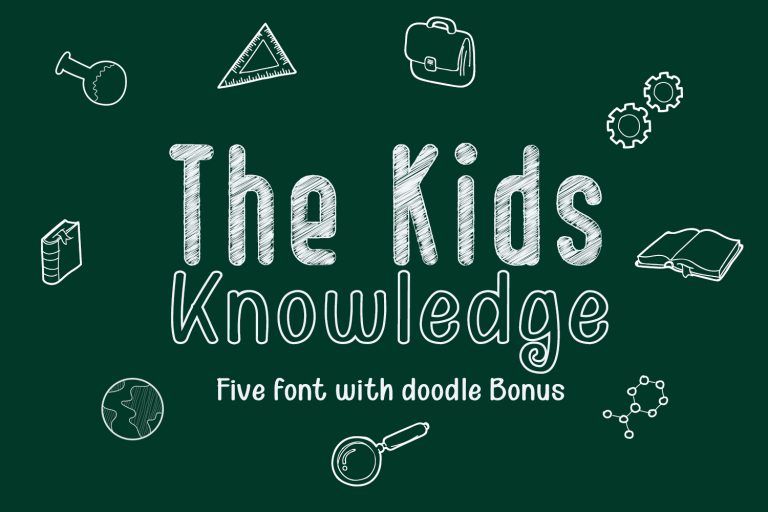
Kid Knowledge
Kid Knowledge sketch - clean
Kid Knowledge sketch - rustic
Kid Knowledge - san outline
Knowledge - san solid
Knowledge-clipart
Kid Knowledge is a striking family. It includes 5 amazing styles which can be combined perfectly, giving you the opportunity to create multiple unique designs in an instant. It was inspired by children’s science projects and will give a playful touch to your designs.